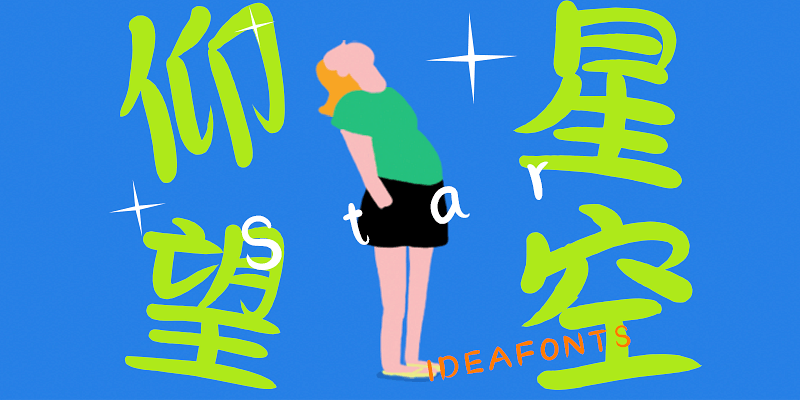
HelloFont ID Xiu Yuan Ti Font Free Download
HelloFont ID Xiu Yuan Ti Font Free Download is a refined and modern Chinese-style typeface that balances elegant calligraphic influences with clean, structured forms. Featuring soft curves and well-defined strokes, this font is ideal for projects that need both sophistication and readability, such as branding, editorial design, packaging, and promotional materials.
The HelloFont ID Xiu Yuan Ti Font offers a delicate yet contemporary aesthetic, making it versatile for both traditional and modern design applications. Its design ensures a perfect balance between grace and functionality, providing clarity without sacrificing beauty. It is an excellent choice for luxury branding, cultural events, and high-end product packaging.